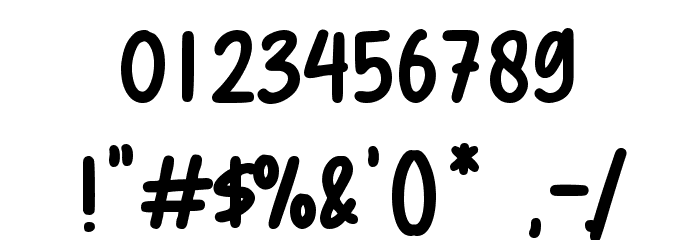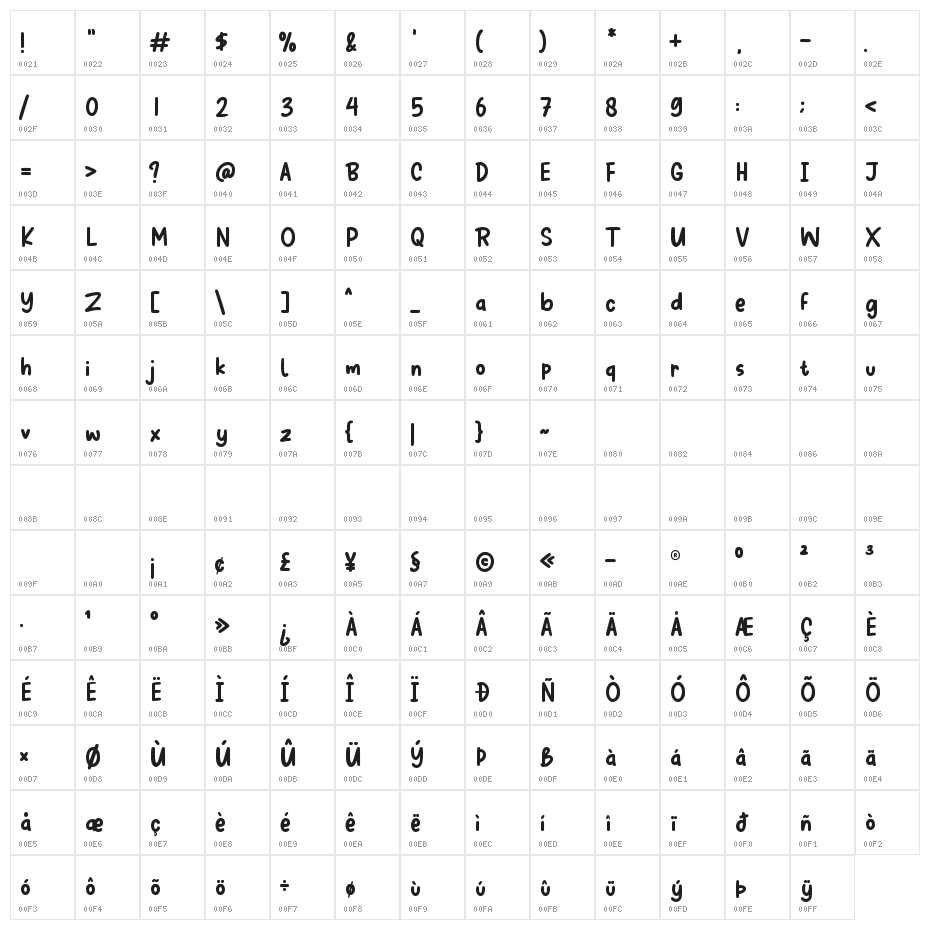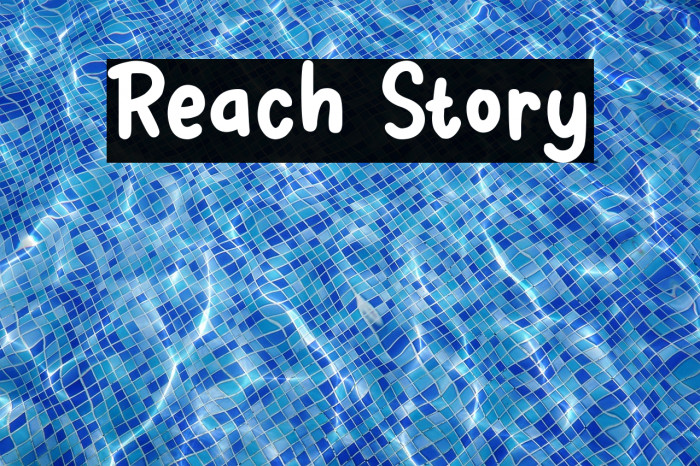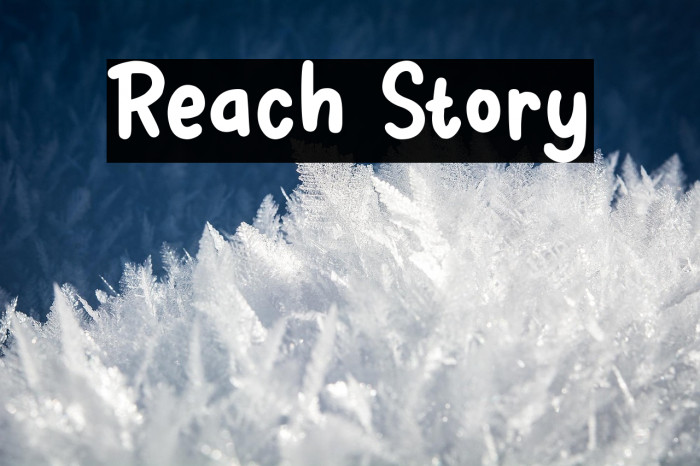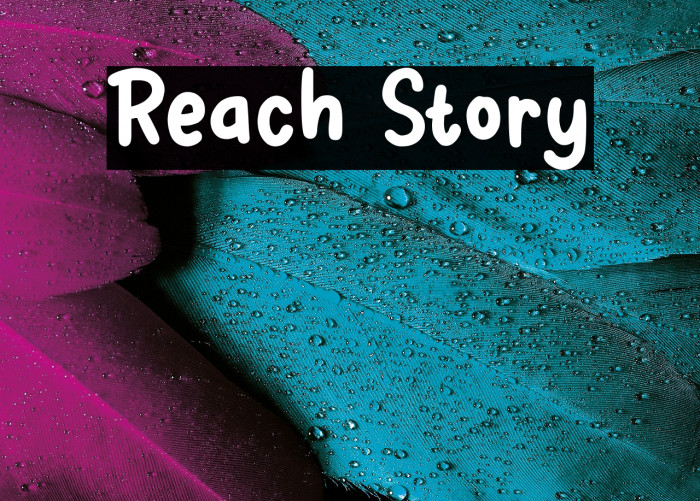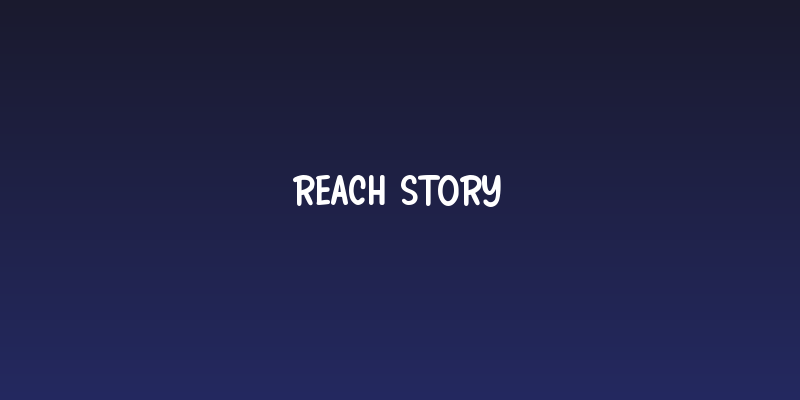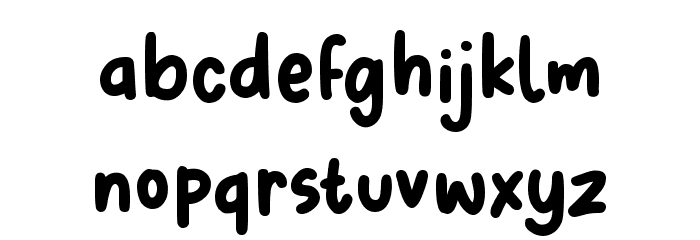
Reach Story Font
Reach Story Description
This playful and informal font features rounded, bold characters that convey a sense of friendliness and approachability. The letters have a hand-drawn quality, with slightly uneven strokes that add to its charm. The uppercase and lowercase letters are well-balanced, maintaining a consistent style throughout. Numbers and special characters are included, matching the whimsical aesthetic of the alphabet. This font is ideal for projects that require a casual and fun vibe, making it suitable for children's books, playful branding, or creative invitations.
| Use Case | Headlines, Logos, Informal text |
| Proposed Projects | Children's books, playful branding, creative invitations, casual posters. |